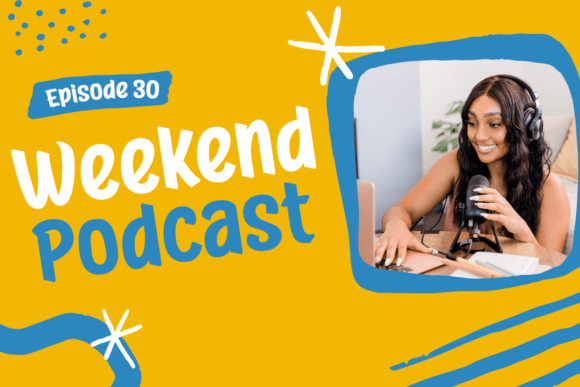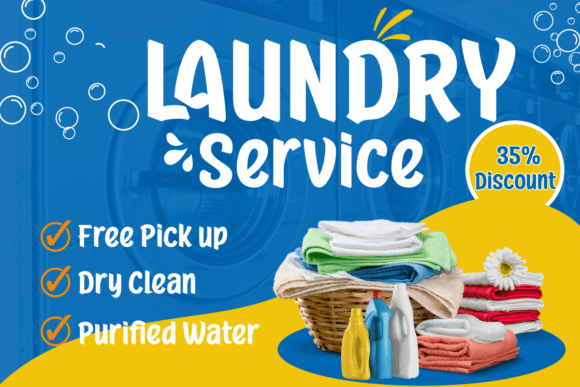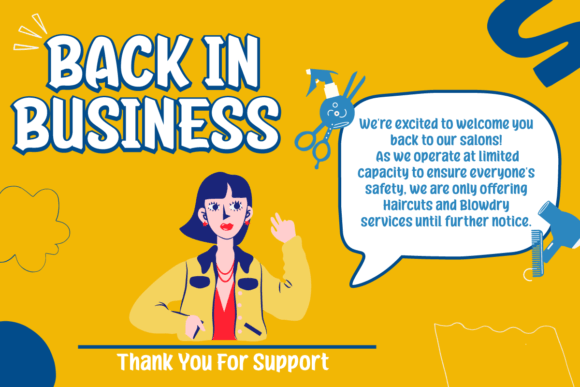
Introduction to Jatukiy Font
Introducing β€œJATUKIY Font” – Unleash Playful Creativity.
Meet JATUKIY Font, your passport to a world of playful design possibilities Designed with a whimsical touch, this display font brings a burst of fun to your projects.
Key Features of Jatukiy Font
Why Choose Jatukiy Font?
Jatukiy Font offers exceptional quality and versatility, making it a valuable addition to your design toolkit. Whether you’re creating for personal projects or commercial use, Jatukiy Font delivers professional results.